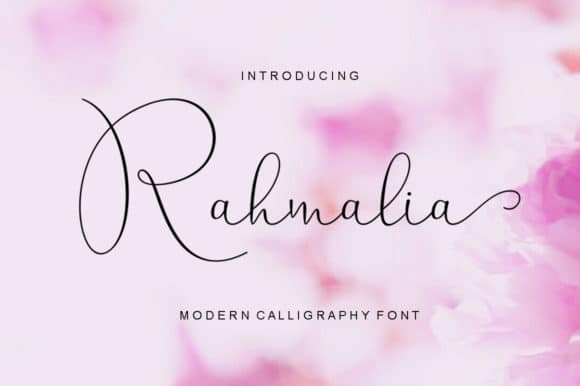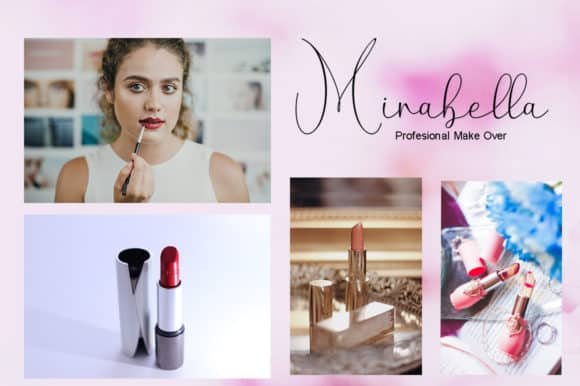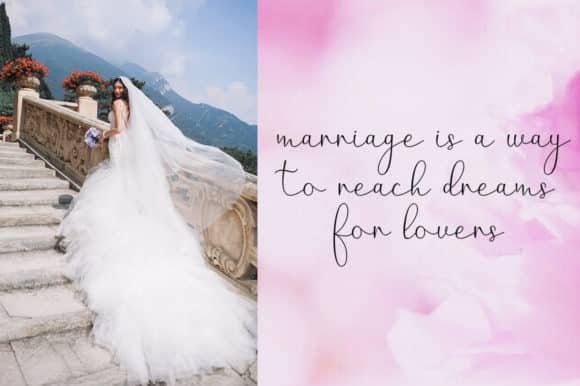
Rahmalia Script Font
Rahmalia Script Font  is a new modern script calligraphy font with an irregular baseline. Get inspired by its trendy and delicate style!